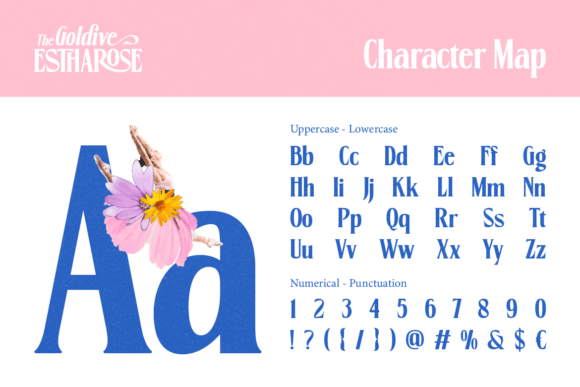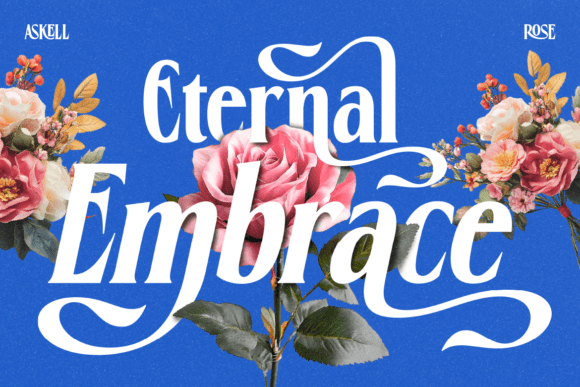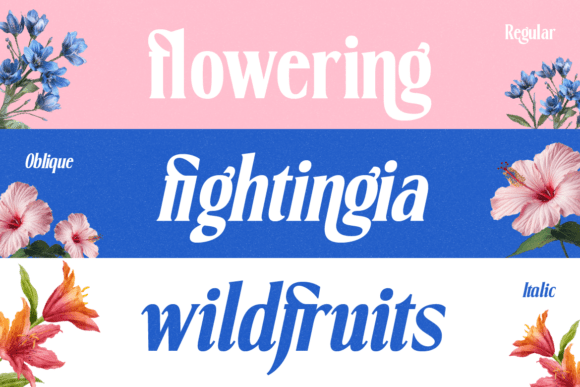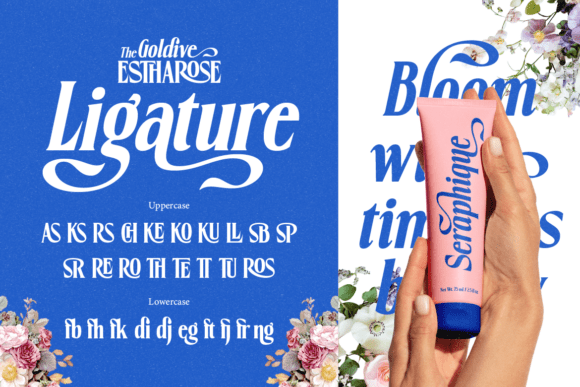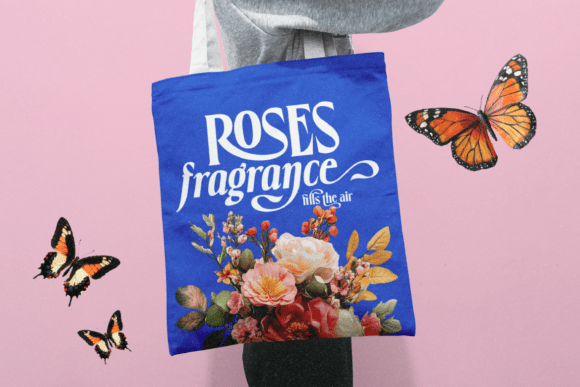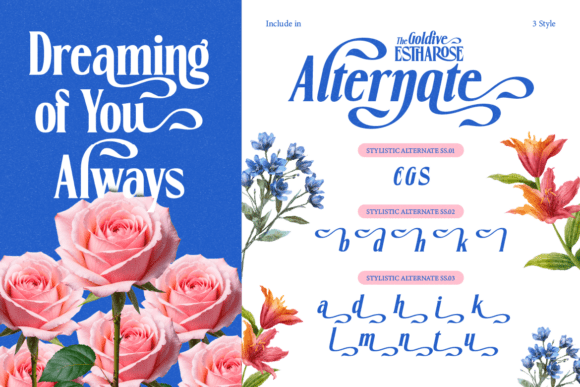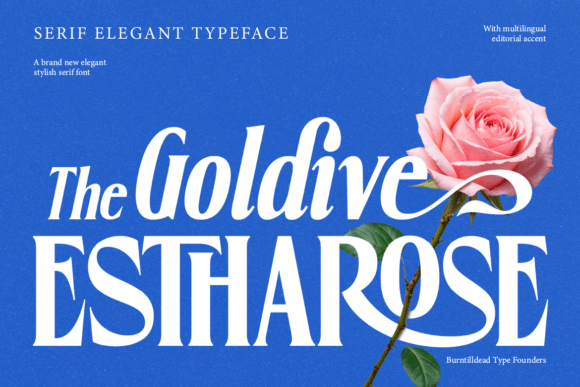
Introducing Goldive Estharose: The Ultimate Serif Font for Elegant Designs
In the world of typography, finding the perfect font that combines elegance, sophistication, and versatility can be a daunting task. However, if you’re looking for a typeface that can elevate your designs to new heights, look no further than Goldive Estharose. This modern, elegant serif font is specifically designed to bring a touch of charm and refinement to your projects, making it an ideal choice for designers and crafters seeking to create stunning visual content.
A Font that Exudes Sophistication and Charm
Goldive Estharose boasts stylish curves, sharp details, and a timeless editorial vibe that is sure to captivate your audience. Its elegant design makes it perfect for a wide range of applications, including logos, wedding invitations, fashion branding, magazine layouts, and classy social media designs. Whether you’re working on a digital project or a print design, this font is guaranteed to add a level of sophistication and refinement that will set your work apart from the rest.
One of the standout features of Goldive Estharose is its versatility. This font comes in regular, oblique, and italic styles, allowing you to experiment with different looks and feels to suit your design needs. Additionally, it offers multilingual support and a complete set of uppercase, lowercase, numbers, and punctuation, making it an excellent choice for both digital and print use.
Designed for Ease of Use
Goldive Estharose is not only a beautiful font but also easy to use. It is PUA-encoded, ensuring effortless access to all glyphs, swashes, and alternate characters. This feature allows you to customize your creations with ease, giving you the flexibility to experiment with different design elements and create unique visual content.
Goldive Estharose is an excellent choice for designers and crafters seeking to create high-end designs that exude romance, professionalism, and elegance. Its elegant design and versatility make it an ideal font for a wide range of projects, from wedding invitations and fashion branding to magazine layouts and social media designs.
Why Choose Goldive Estharose?
- Elegant Design: Goldive Estharose boasts a modern, elegant serif design that is sure to add a touch of sophistication to your projects.
- Versatility: This font comes in regular, oblique, and italic styles, making it perfect for a wide range of applications.
- Multilingual Support: Goldive Estharose offers multilingual support, allowing you to create designs for a global audience.
- PUA-Encoded: This font is PUA-encoded, ensuring effortless access to all glyphs, swashes, and alternate characters.
- Easy to Pair: Goldive Estharose is designed to be easy to pair with other fonts, making it perfect for designers seeking to create unique visual content.
In conclusion, Goldive Estharose is a modern, elegant serif font that is sure to bring sophistication and charm to your designs. Its stylish curves, sharp details, and timeless editorial vibe make it perfect for a wide range of applications, from logos and wedding invitations to fashion branding and social media designs. With its versatility, ease of use, and elegant design, Goldive Estharose is an excellent choice for designers and crafters seeking to create high-end designs that exude romance, professionalism, and elegance.